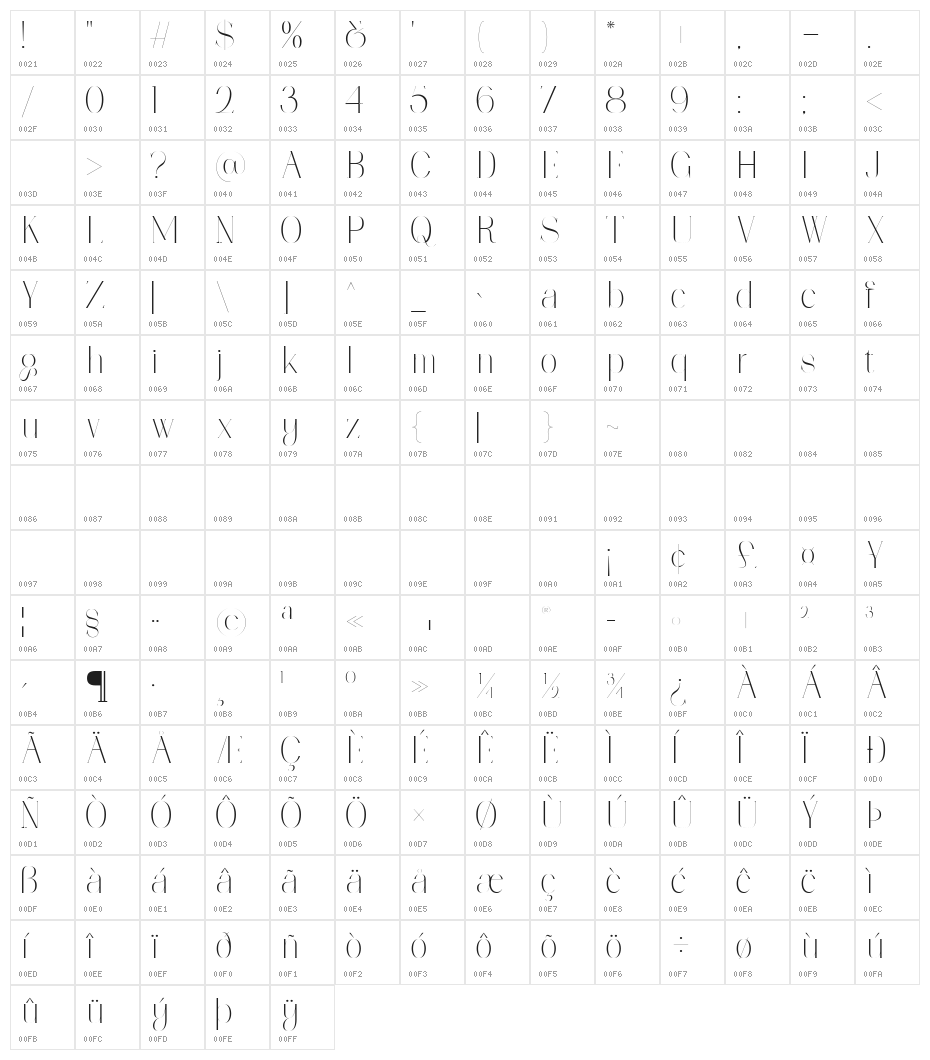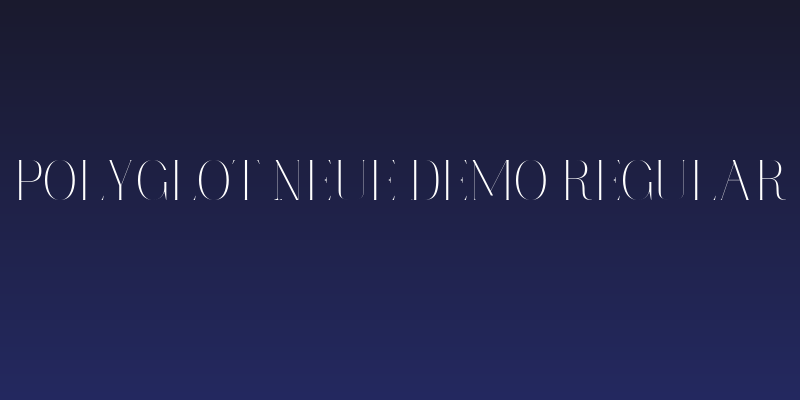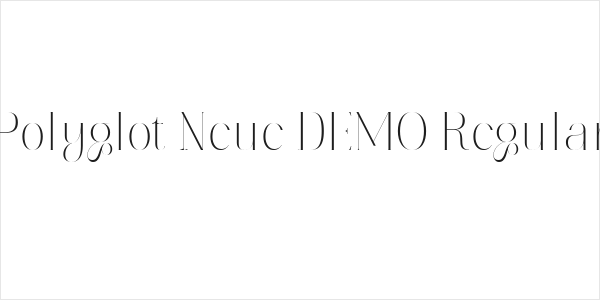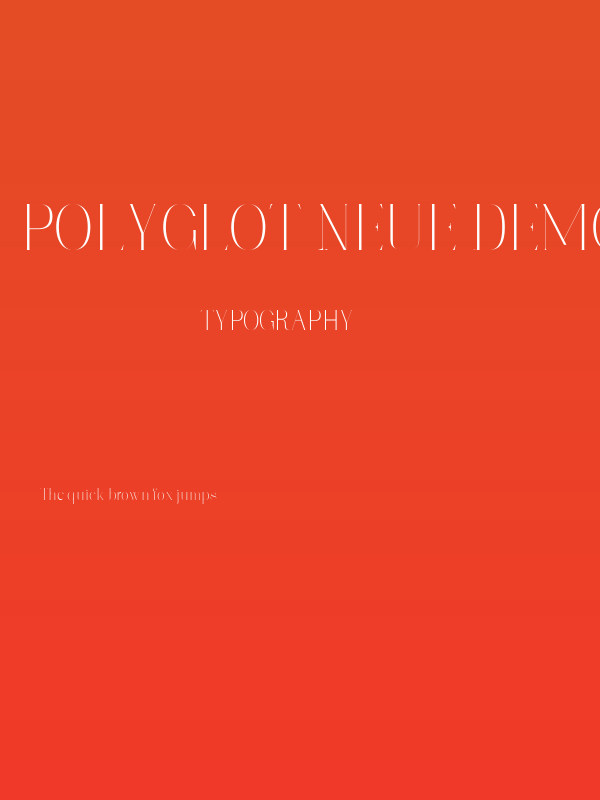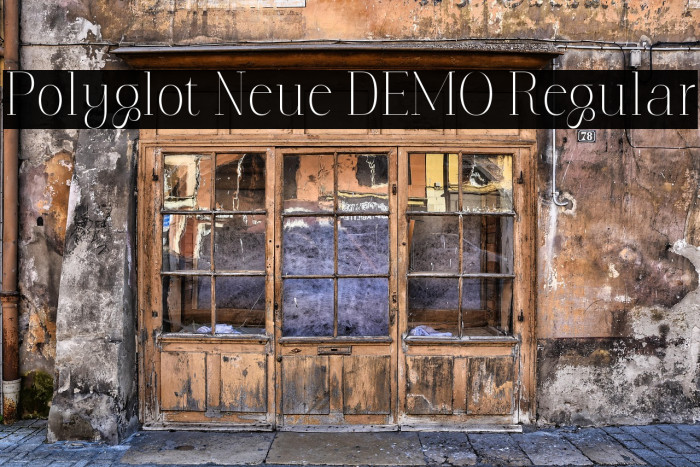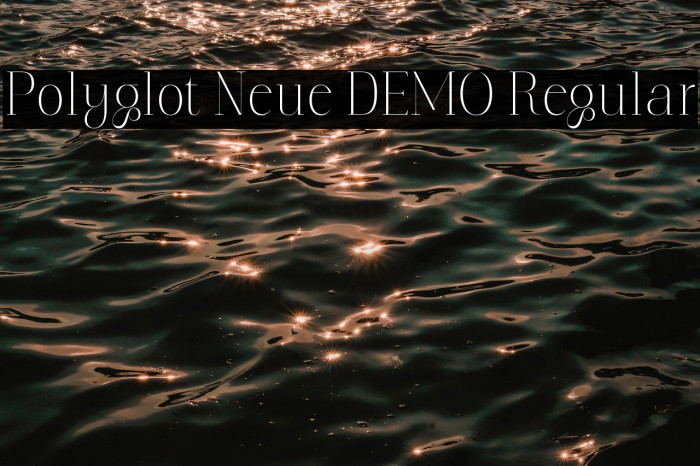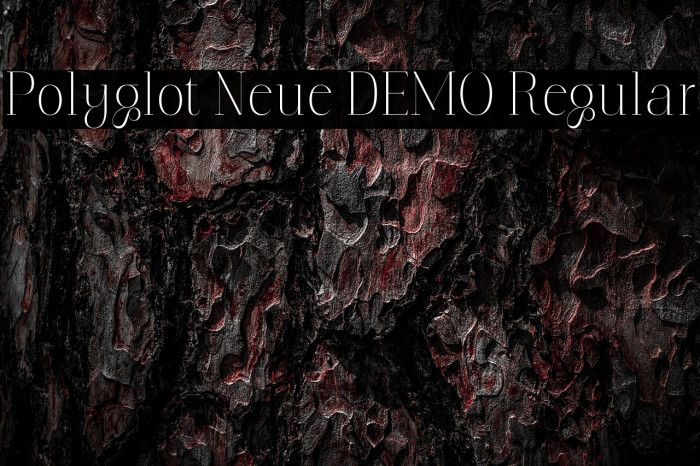
Polyglot Neue DEMO Regular Font
Polyglot Neue DEMO Regular Description
This font exhibits a modern and elegant style with a high contrast between thick and thin strokes, giving it a sophisticated appearance. The uppercase letters are tall and slender, while the lowercase letters maintain a consistent height, creating a harmonious balance. The numerals are distinct and clear, ensuring readability. Special characters are designed with a unique flair, adding to the font's overall aesthetic. The font's clean lines and refined curves make it suitable for a variety of design applications.
| Proposed Projects | Ideal for luxury branding, editorial design, fashion magazines, and elegant invitations. |